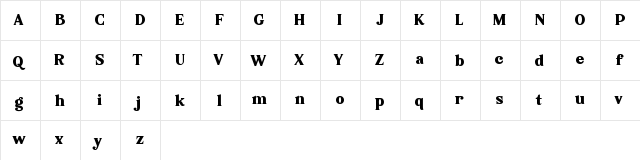
Karimun Regular
| Foundry | Kulokale |
| Designer | M Arif Dwi Prasetyo & Eko Nurcahyo |
Design Context for Karimun Typeface
Karimun takes a measured approach to typography — its balanced proportions and neutral character make it a reliable workhorse for both digital and print work.